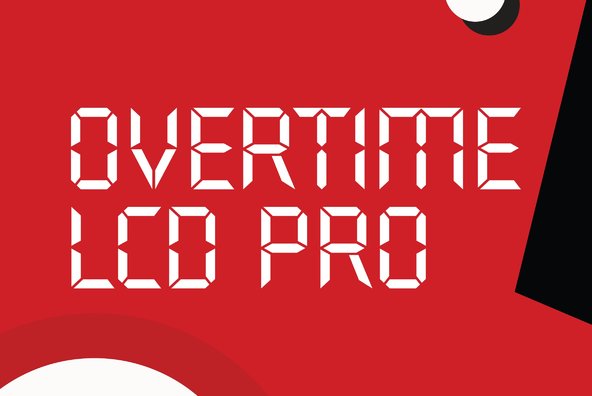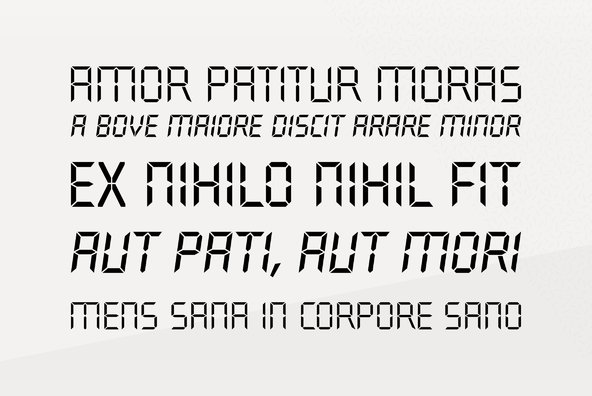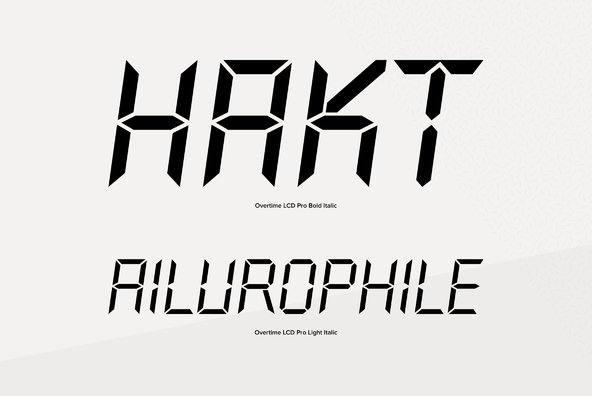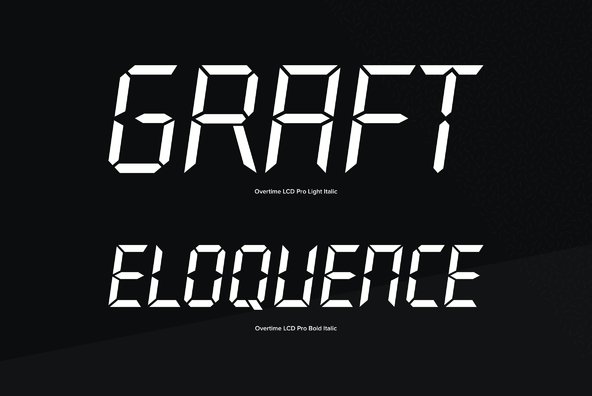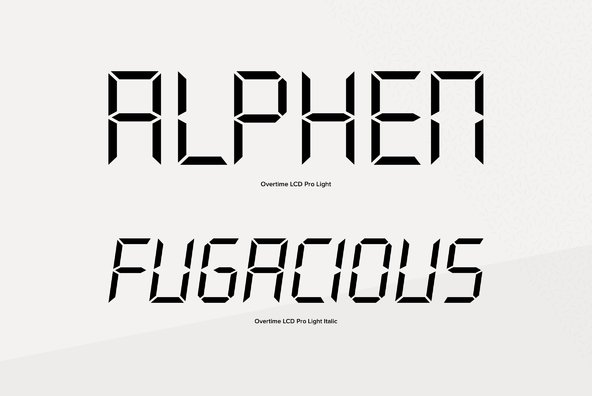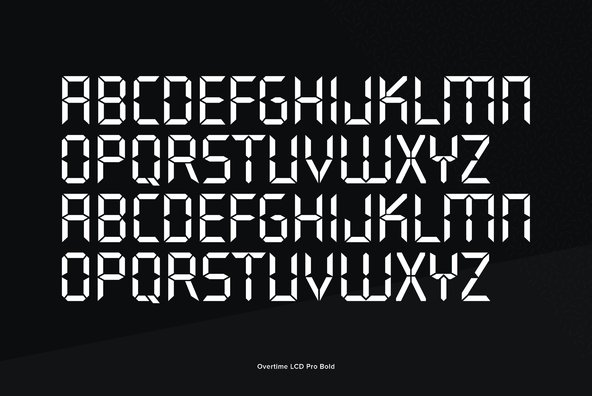
Overtime LCD Pro
Designed by Steve Jackaman & Ashley Muir. Our collection was missing a small piece of the jigsaw puzzle until now; a quartz digital LCD font! Overtime LCD contains all the high-end features expected in a quality OpenType Pro font.